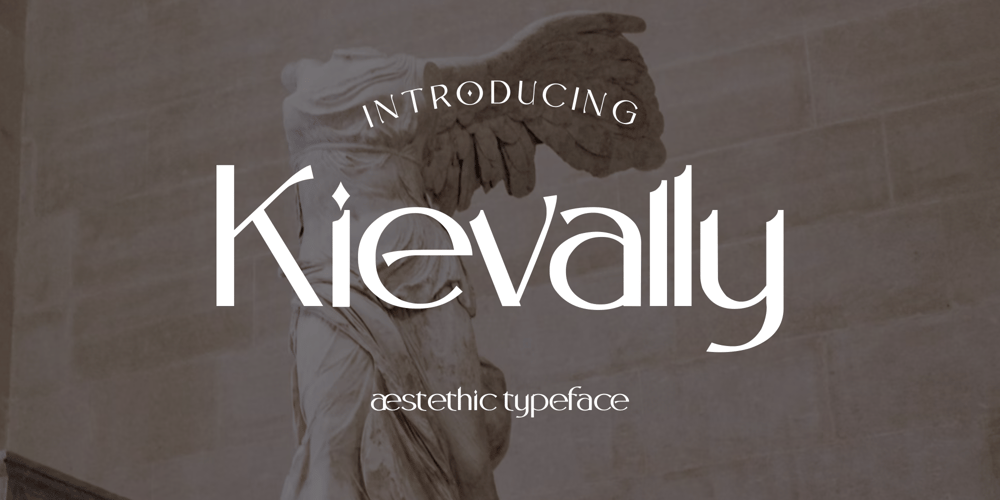
Kievally
Kievally font
Kievally Font Family was designed by Zamjump and published by Zamjump. Kievally contains 1 styles and family package options. Kievally is a refined aesthetic. This majestic typeface adds a touch of stunning elegance to any design. Although the inspiration for this typeface dates back to the Art Deco era, Kievally feels modern and contemporary. Use Kievally for your branding, magazine designs, logo designs, headlines, posters, packaging, cards or wedding invitations.Included :- Uppercas and Lowercase- Ligatures- Numerals & Punctuation- Accented characters